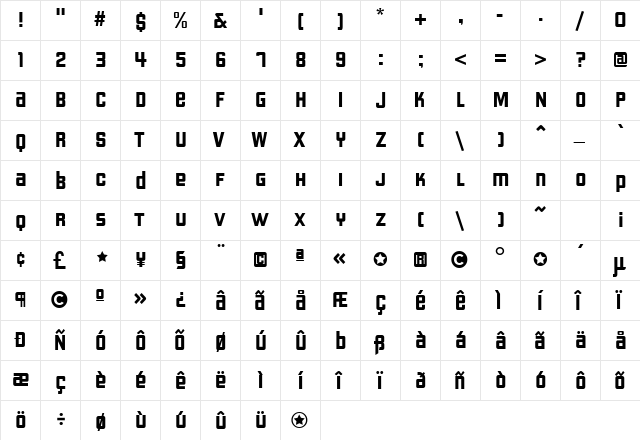
LiquorstoreJazz Regular
Design Context for LiquorstoreJazz Typeface
LiquorstoreJazz offers clean, dependable letterforms without strong stylistic allegiance, making it a practical choice for designers who need flexibility.
Pro Tip: Pair LiquorstoreJazz with a font of contrasting weight or personality to build a more expressive typographic hierarchy.